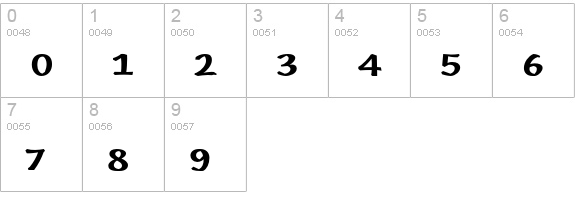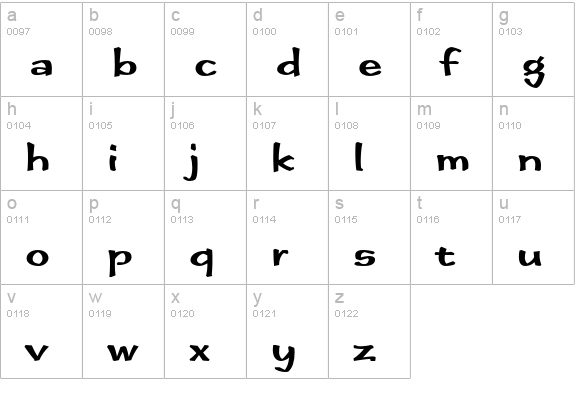
Immi 505 Font Details
Introducing Immi 505, a beautifully crafted font that exudes elegance and sophistication. With its clean lines and graceful curves, Immi 505 captures attention and adds a touch of class to any design project. This versatile font is perfect for a wide range of applications, whether it be for branding, editorial design, or website headers. Its timeless appeal makes it suitable for both modern and classic design styles, ensuring that your work stands the test of time. Immi 505 is not only visually stunning, but it also offers a sense of freedom. With its freely flowing characters and effortless legibility, this font allows your creativity to soar as you bring your ideas to life. One of the best things about Immi 505 is that it is freely available to download at FontsMarket.com. You can easily access this font and incorporate it into your projects without any hassle. It's the perfect opportunity to enhance your designs with a high-quality, professional font that won't cost you a penny. Whether you're a seasoned designer or just starting out, Immi 505 is a must-have in your font collection. Its beauty, versatility, and the fact that it is freely available make it an invaluable asset that will elevate your designs to new heights. Don't miss out on this opportunity to download Immi 505 and add a touch of elegance to your next project.